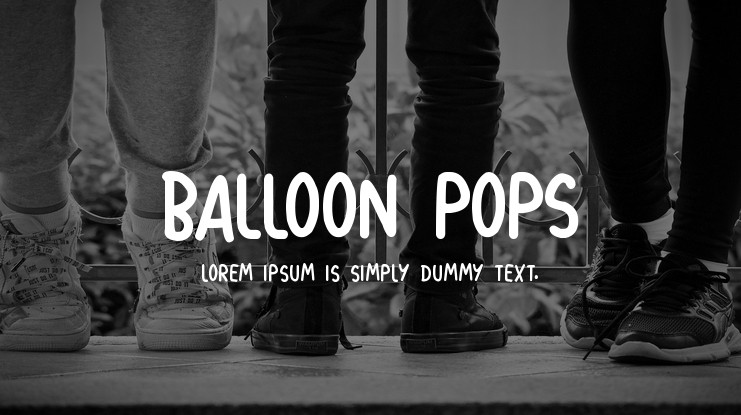
Balloon Pops Font
Balloon Pops Font is famous for its unique textual generator. This typeface is just like the Air balloon font and it’s far to be had for personal use. It’s far to be had in 8 weights presenting hundreds of glyphs and italic variations as well. The font you operate is vital trouble of equal time as designing an identity.
The day authorities stay actual to the make and style font with similar clean trails, stylish shapes, a sum of technical and herbal warmth. Balloon Pops Font Free Its topographies immoderate capital letters composed out through a combination of small and top-notch strawberry blossom brush font. You could moreover use it on your net net net web page or logo format. Categorically awesome suitable to expose and reviews of importance, this could be a first-rate accumulation for your font collection.
The aesthetic font derives from one’s earlier designs to offer a further casual look. Loose present day-day-day-day fonts provide you a manner of experimenting so you will provide you a very unique layout to your client.